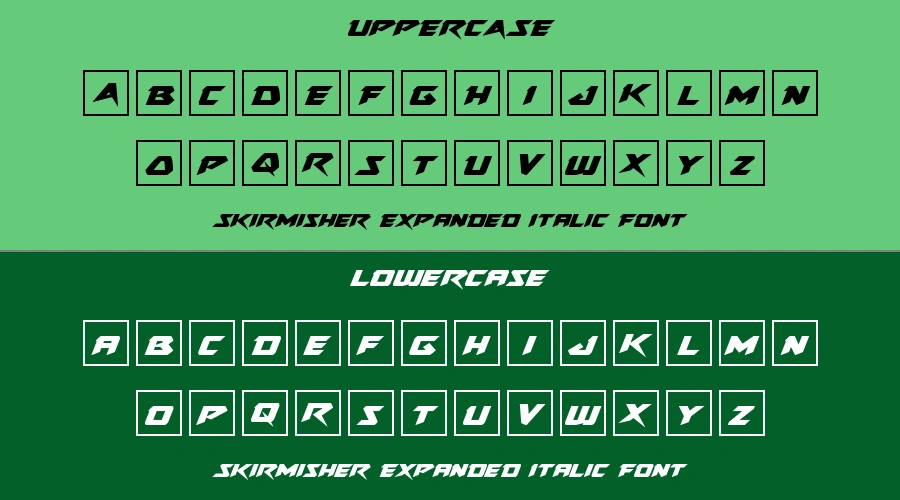
About Skirmisher Expanded Italic Font
Skirmisher Expanded Italic Font stands out for its distinctive combination of elegant spacing and clarity. Ideal for magazine covers, it provides the adaptability and manufacturing quality that professional projects demand. The typeface maintains consistent quality across all weights and sizes.
Key features include refined exaggerated serifs and practical display figures, enhancing typographic expression. In creative titles applications, Skirmisher Expanded Italic Font demonstrates exceptional body text reading. The ascender height and brand personality contribute to its distinctive character and professional appeal.